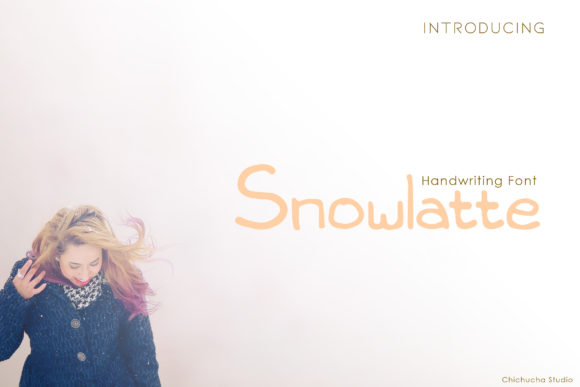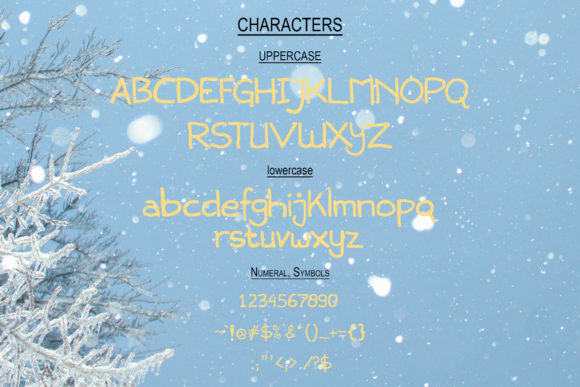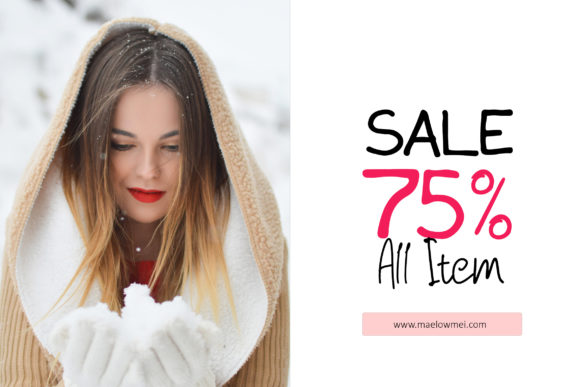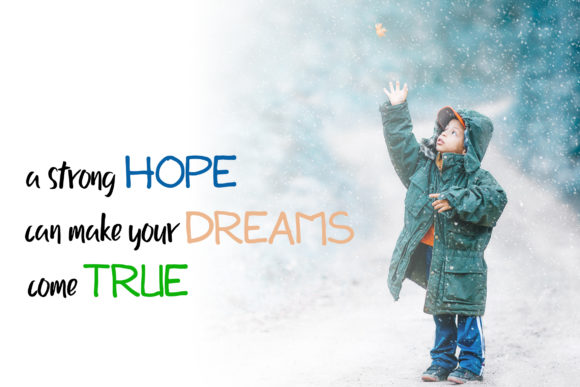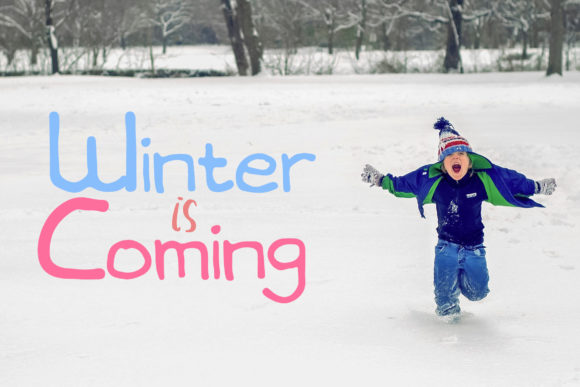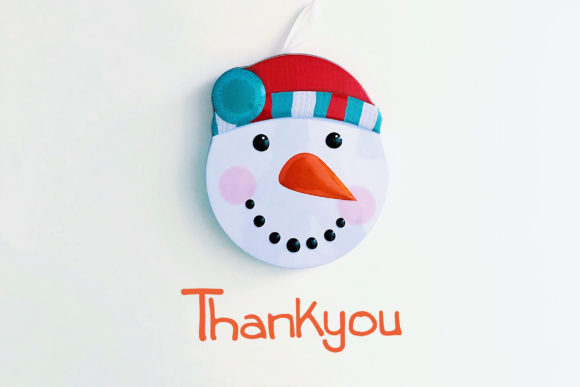
HomeSans Serif FontsSnowlatte Font Sans Serif Fonts Snowlatte Font FacebookTwitterPinterestWhatsApp Snowlatte Font 1 of 6 About Snowlatte Font Snowlatte is a friendly and modern sans serif font. Fall in love with its fresh look & feel. DOWNLOAD NOW People also explored Hambo Font Rafferty Font Blackbird Font Vallentina Font Reindeer Font Winter Gear Font Longbow BB Writing Notes Font Originality Script Font 207 0 TagsSnowlatte Font Previous articleCenturia FontNext articleMindflyers Font LEAVE A REPLY Cancel reply Comment: Please enter your comment! Name:* Please enter your name here Email:* You have entered an incorrect email address! Please enter your email address here Website: Save my name, email, and website in this browser for the next time I comment. Personal Use Free Adrenaline Personal Use Free Read more about this font Where the Cookies Personal Use Free Read more about this font Aseline Personal Use Free Read more about this font Aelten Personal Use Free Read more about this font BLOG Elegant Wedding Invitation Fonts – Handwritten & Script Fonts Elegant Wedding Invitation Fonts Your wedding day is one of the most important moments of your life, and every detail matters—including your invitation design. Our... Where to Buy American Fonts Online in 2024 Best Fonts for YouTube Videos: Make Your Thumbnails Stand Out Exploring Font Trends